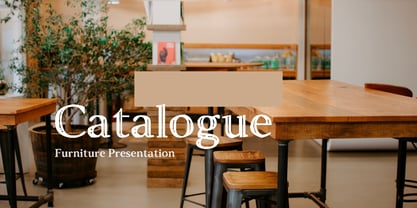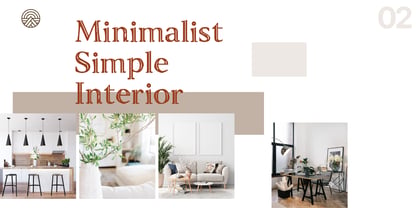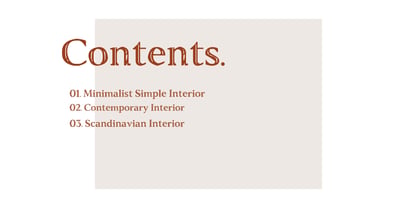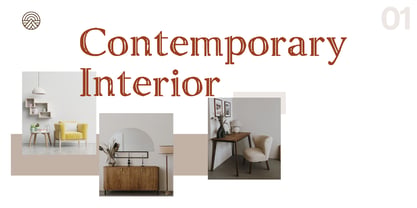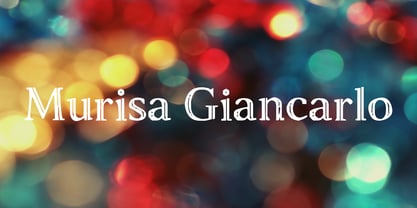
Murisa Giancarlo
La familia tipográfica Murisa Giancarlo fue diseñada por Lili Sadili y publicada por Murisa Studio. Murisa Giancarlo contiene 2 estilos y opciones de paquete familiar. Más información sobre esta familia
Murisa Giancarlo — Timeless Elegance with a Modern Vintage Character
Unveil a refined aesthetic in your design projects with Murisa Giancarlo, a uniquely crafted typeface that blends classic serif structure with sophisticated double-line inline details. Designed with distinct character curves and high-contrast lines, this font brings a majestic, artisanal feel to editorial layouts, vintage branding, and high-end display typography.
Whether you are crafting luxury product packaging, bold headlines, stylish poster art, or elegant wedding invitations, Murisa Giancarlo offers an unforgettable visual identity that commands attention.
🌟 Key Features:
• 🎨 Distinctive Inline Style — Features elegant inline etching that adds instant depth, texture, and handcrafted luxury to every character.
• 🌍 Eastern European Language Support — Fully equipped with expanded multilingual character sets to effortlessly support Eastern European languages.
• 🔤 Complete Character Set — Includes full sets of uppercase letters, lowercase letters, numbers, and core punctuation marks.
• ✒️ Versatile Display Aesthetics — Perfect for branding, logo design, book covers, labels, apparel, magazine spreads, and social media graphics.
Bring distinction, heritage, and unmatched charm to your creative work with Murisa Giancarlo!